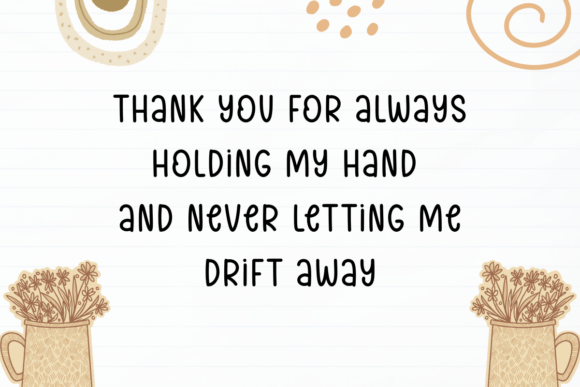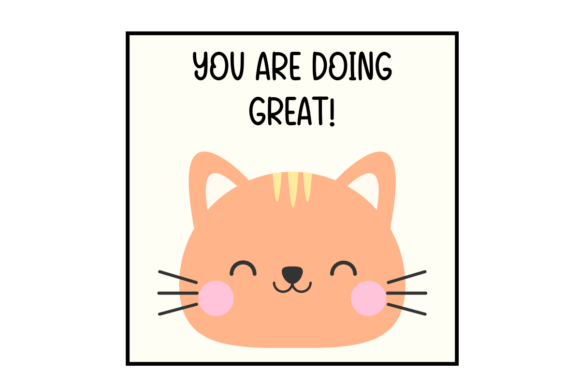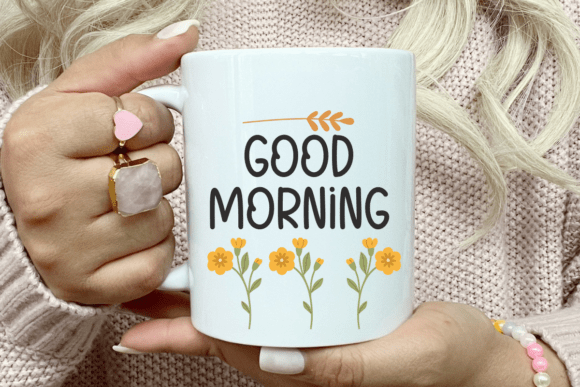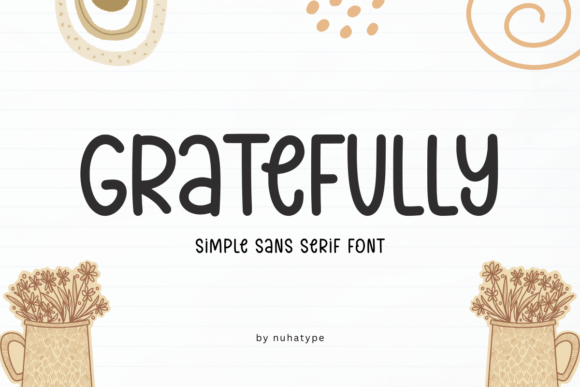
Introduction to Gratefully Font
Gratefully is a cute sans serif font full of charm and whimsy.
With rounded shapes and a soft, friendly vibe, it’s perfect for kids’ designs, playful branding, social media graphics, and cheerful packaging The fun, bubbly letters bring an easygoing tone to any creative project.
Key Features of Gratefully Font
Why Choose Gratefully Font?